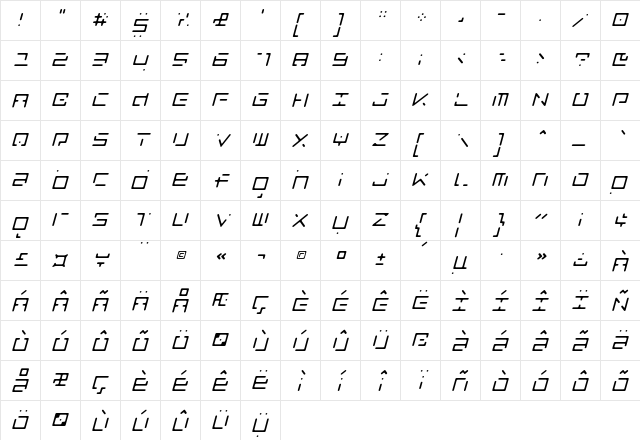
LuggageRoundBroken LightObl
Design Context for LuggageRoundBroken Typeface
LuggageRoundBroken softens its letterforms with rounded terminals, giving it an approachable, friendly quality that works well in consumer-facing and digital contexts. Its slender proportions lend an understated elegance to any composition.
A natural fit for tech startups, health and wellness brands, children's products, and friendly consumer apps.
Font Pairing: Pairs well with a rounded or humanist sans for body copy, maintaining the friendly tone without relying on LuggageRoundBroken to carry extended reading.
Pro Tip: Pair LuggageRoundBroken with a geometric sans for a balanced system — the rounded softness works as a warm counterpoint to harder-edged companions.